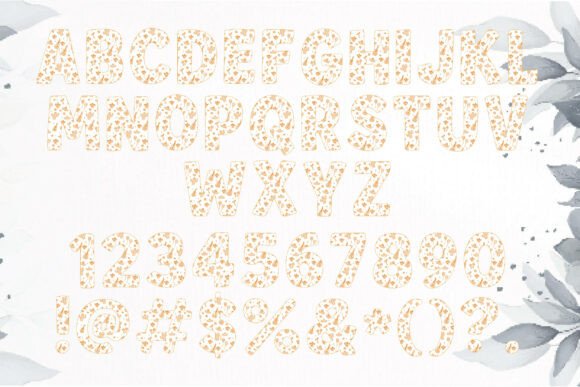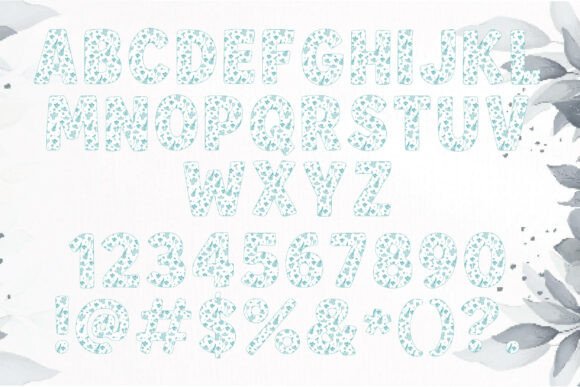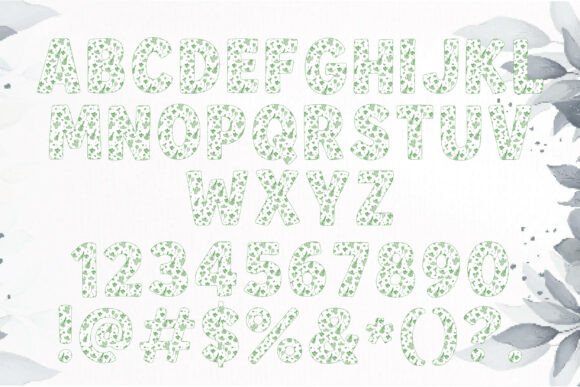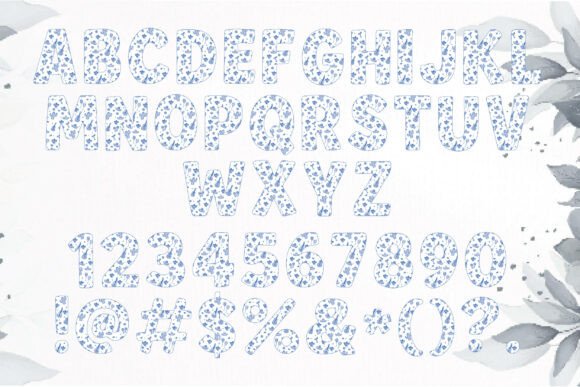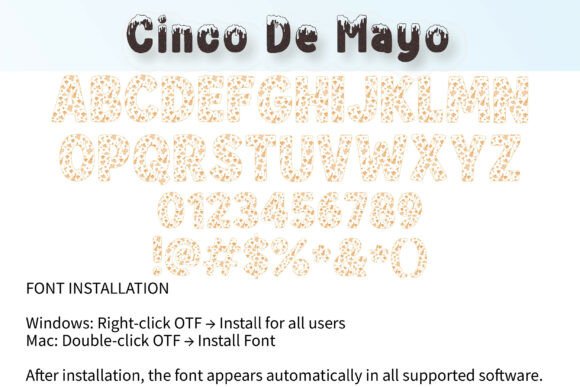
Celebrate with Color and Culture: Introducing the Cinco De Mayo Font
Are you looking for a vibrant and festive font to add a touch of Mexican flair to your designs? Look no further than the Cinco de Mayo Pattern Alphabet Pack! This stunning font is designed with colorful, Mexican-inspired patterns and lively details that will make your fiesta and celebration designs truly unforgettable.
What is the Cinco De Mayo Font?
The Cinco de Mayo Font is a unique and eye-catching font that combines traditional Mexican patterns with modern design elements. The font features intricate details and colorful graphics that will transport your designs to the vibrant streets of Mexico. Whether you’re creating party decorations, t-shirts, mugs, or social media graphics, this font is sure to add a festive touch to your projects.
The Cinco de Mayo Font is incredibly versatile and can be used for a wide range of projects, including:
- Cinco de Mayo celebrations: Create festive party decorations, invitations, and graphics that will get your guests in the mood for a fiesta!
- Fiesta party designs: Add a touch of Mexican flair to your party designs, from invitations to decorations and more.
- Mexican themed projects: Whether you’re creating a brochure, flyer, or social media graphic, this font is perfect for adding a touch of Mexican culture to your designs.
- T-shirt and merch designs: Create eye-catching t-shirts, mugs, and other merchandise that will stand out from the crowd.
- Stickers and planners: Add a pop of color and fun to your stickers and planners with this vibrant font.
- Sublimation projects: Create stunning sublimation projects, from mugs to phone cases, with this beautiful font.
Why Choose the Cinco De Mayo Font?
So why choose the Cinco de Mayo Font for your next project? Here are just a few reasons:
- Unique and eye-catching design: This font is unlike anything you’ve seen before, with its colorful, Mexican-inspired patterns and lively details.
- Versatile: Use this font for a wide range of projects, from party decorations to social media graphics.
Tips for Using the Cinco De Mayo Font
Here are a few tips for getting the most out of the Cinco de Mayo Font:
- Experiment with different colors: While the font is designed to be colorful, you can always experiment with different colors and combinations to create a unique look.
- Pair with other fonts: Try pairing the Cinco de Mayo Font with other fonts to create a unique and interesting contrast.
- Use in combination with other design elements: Add depth and interest to your designs by using the font in combination with other design elements, such as graphics, patterns, and textures.